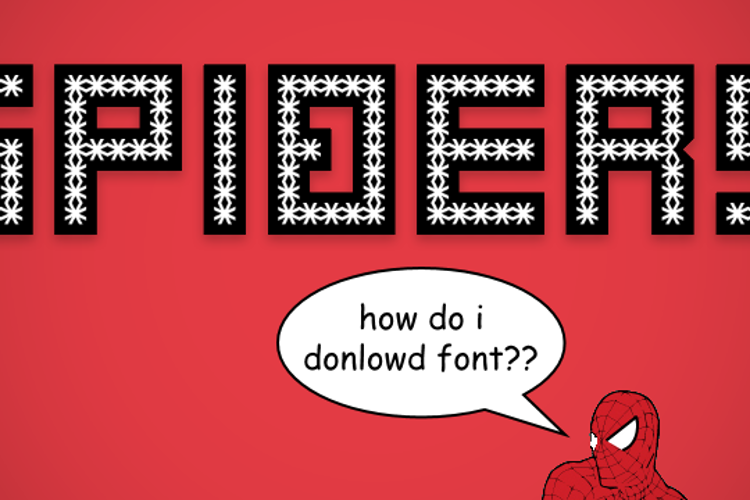
Spiderling Font
by Pixel Kitchen
Inverse Regular Style
About Spiderling Font
A pair of experimental fonts which look like they're covered in spiders. Character support is pretty limited since these are meant for displays, logos, etc.